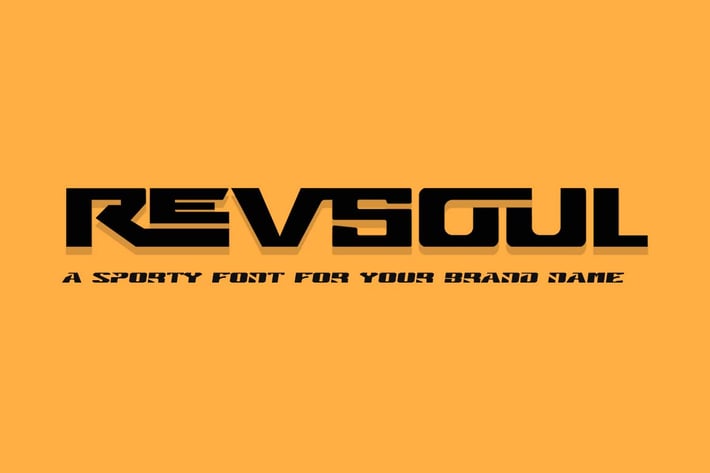
Revsoul - Sporty Font
Introducing Randos, a simple and modern sans serif font. Its unique and sporty feel.
So perfect for you who needs a typeface for logo designs, magazine, social media, brochure, and many more.